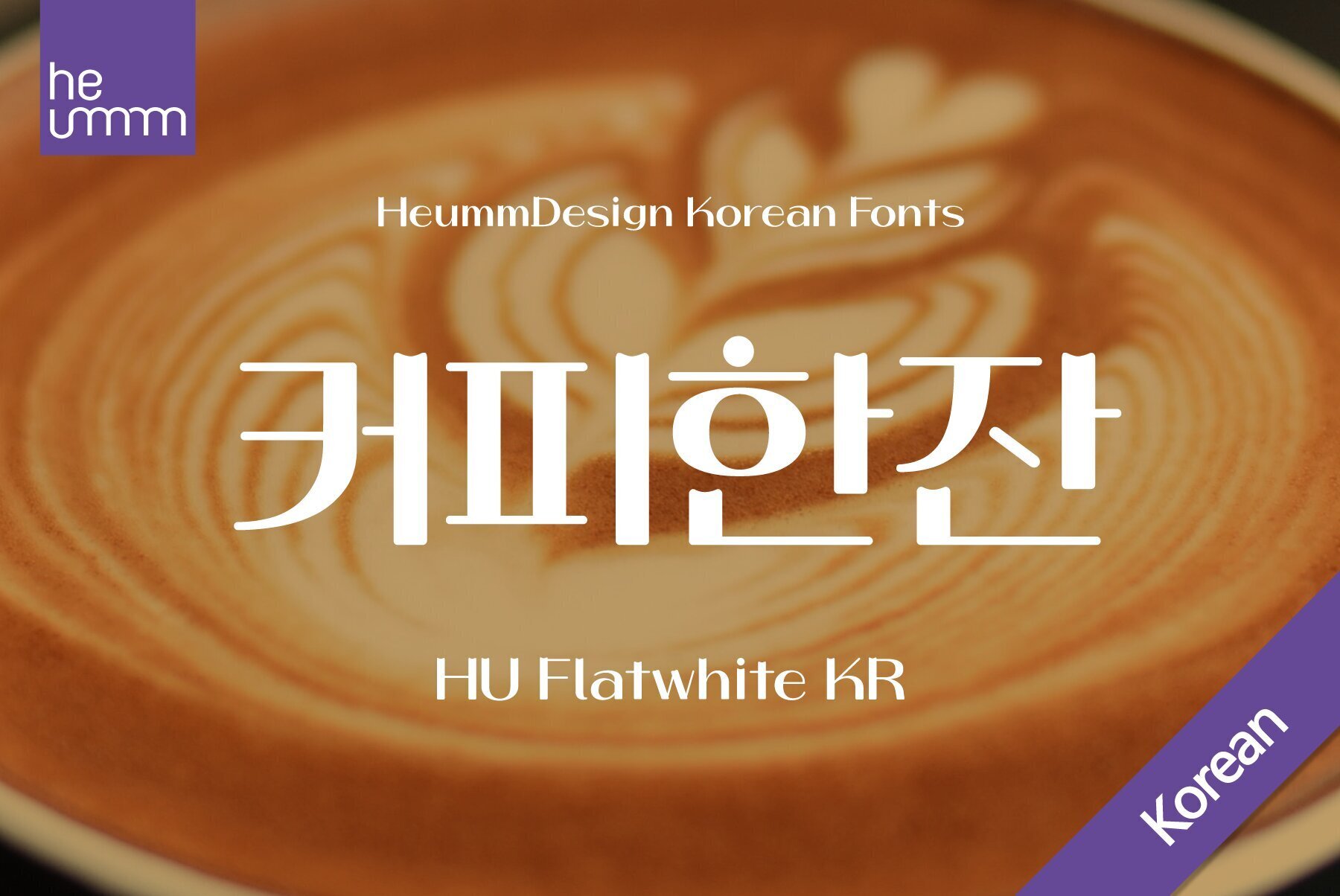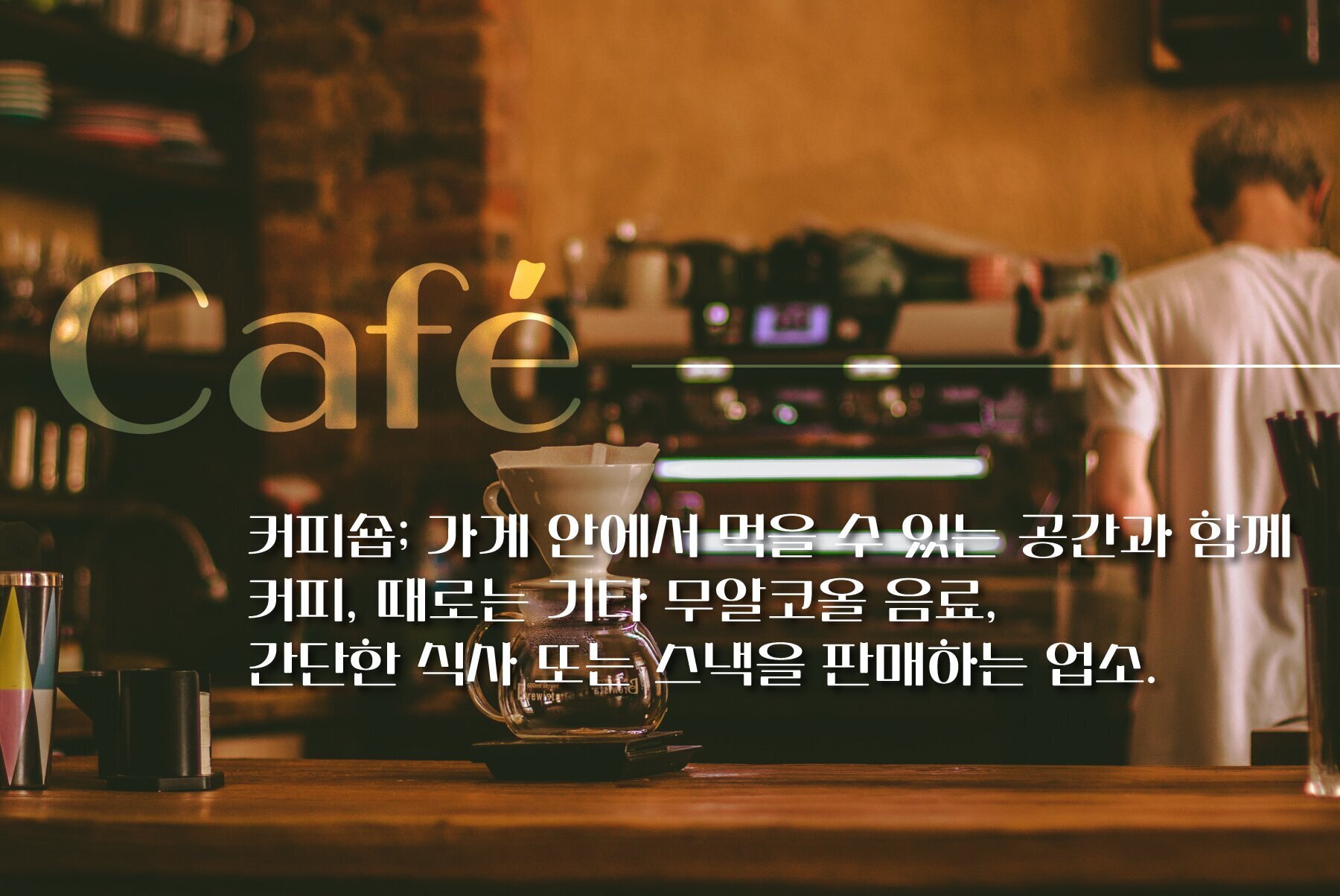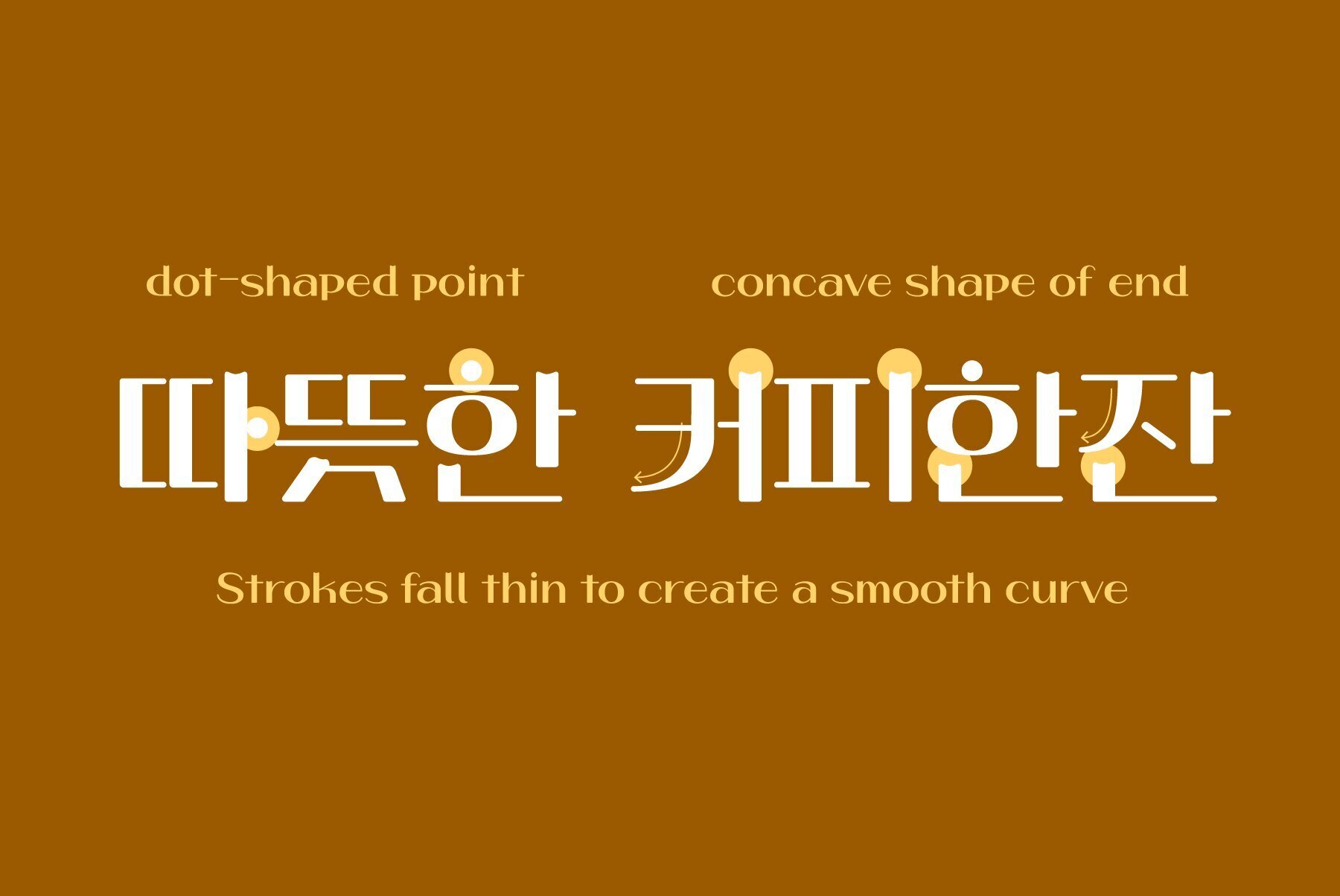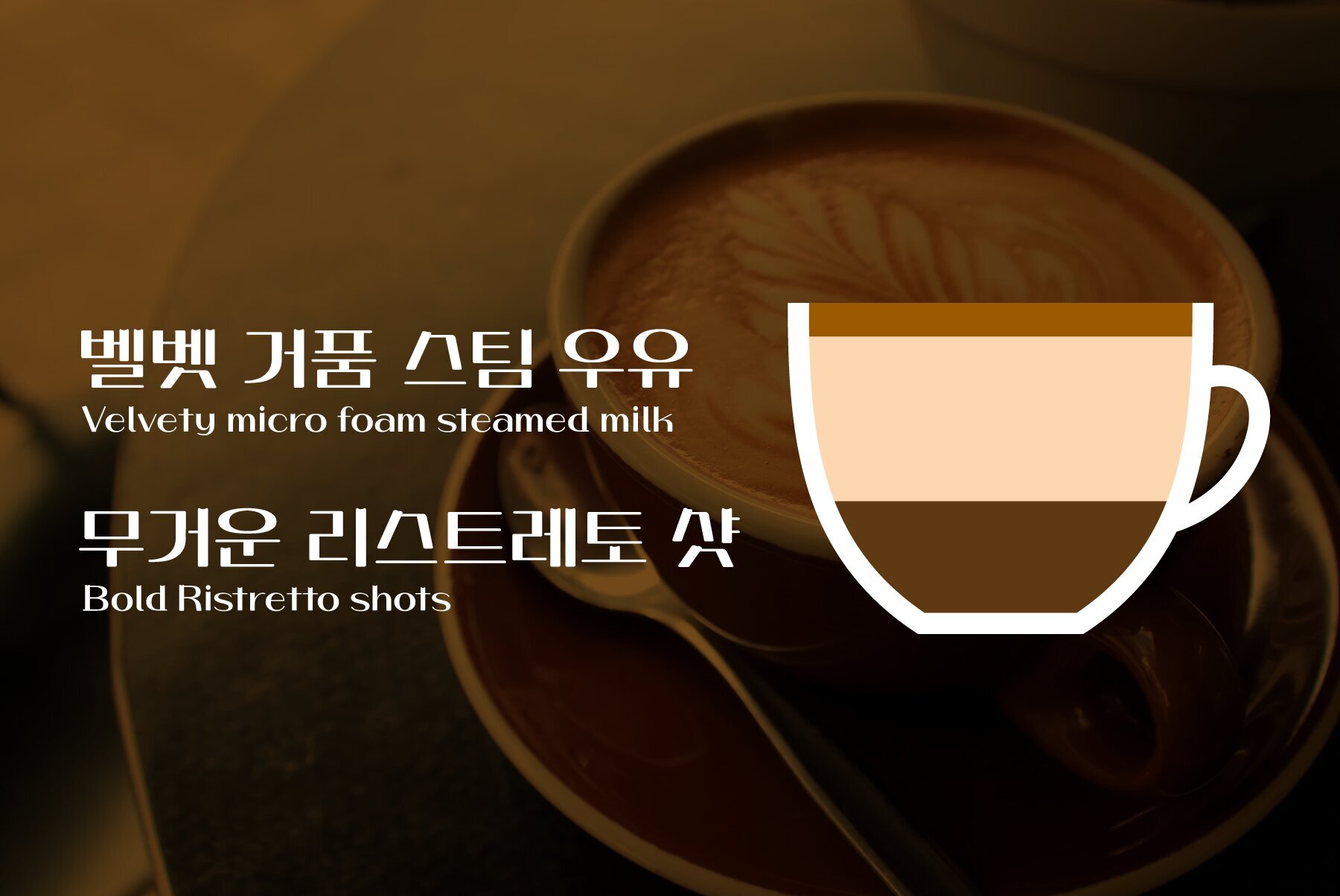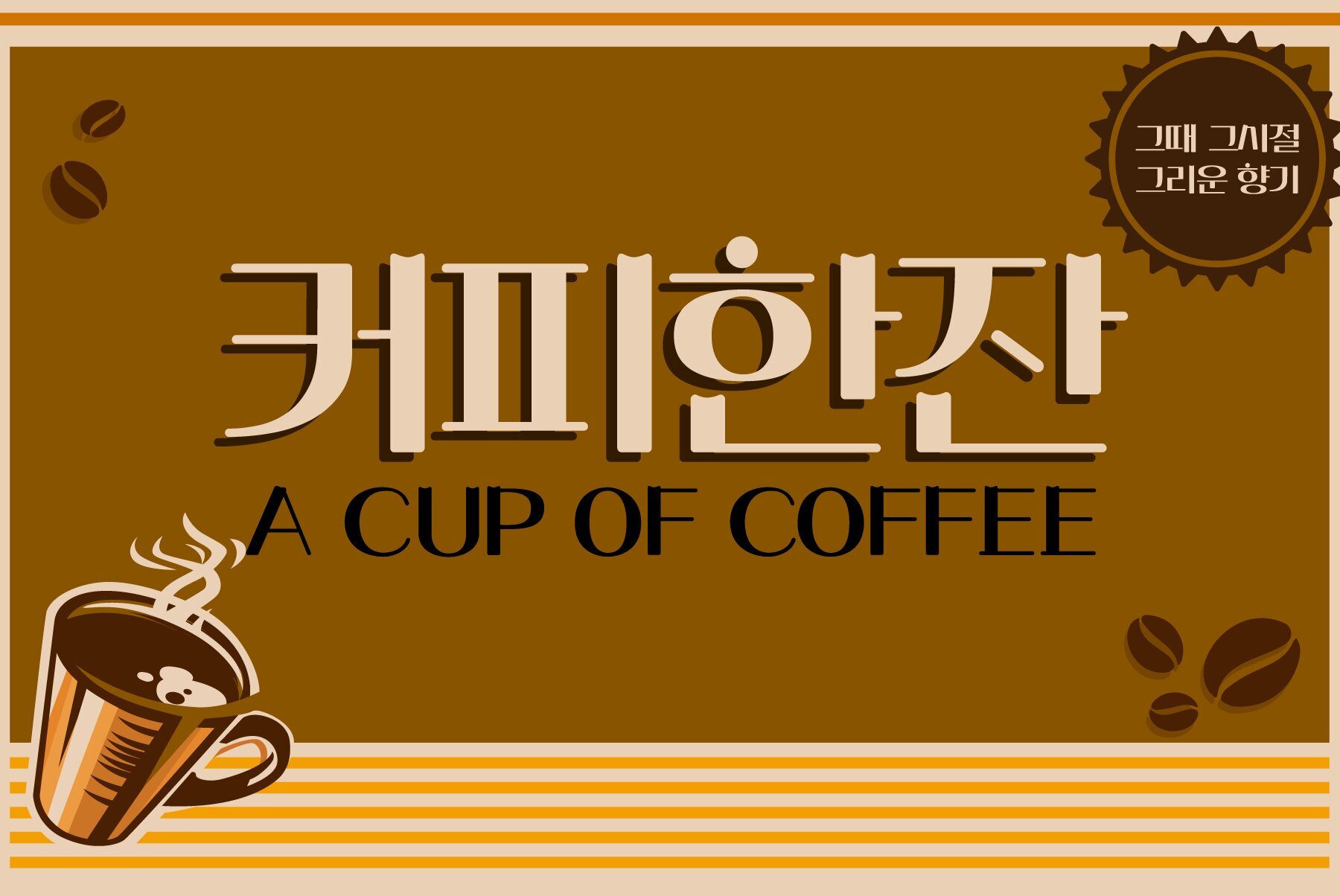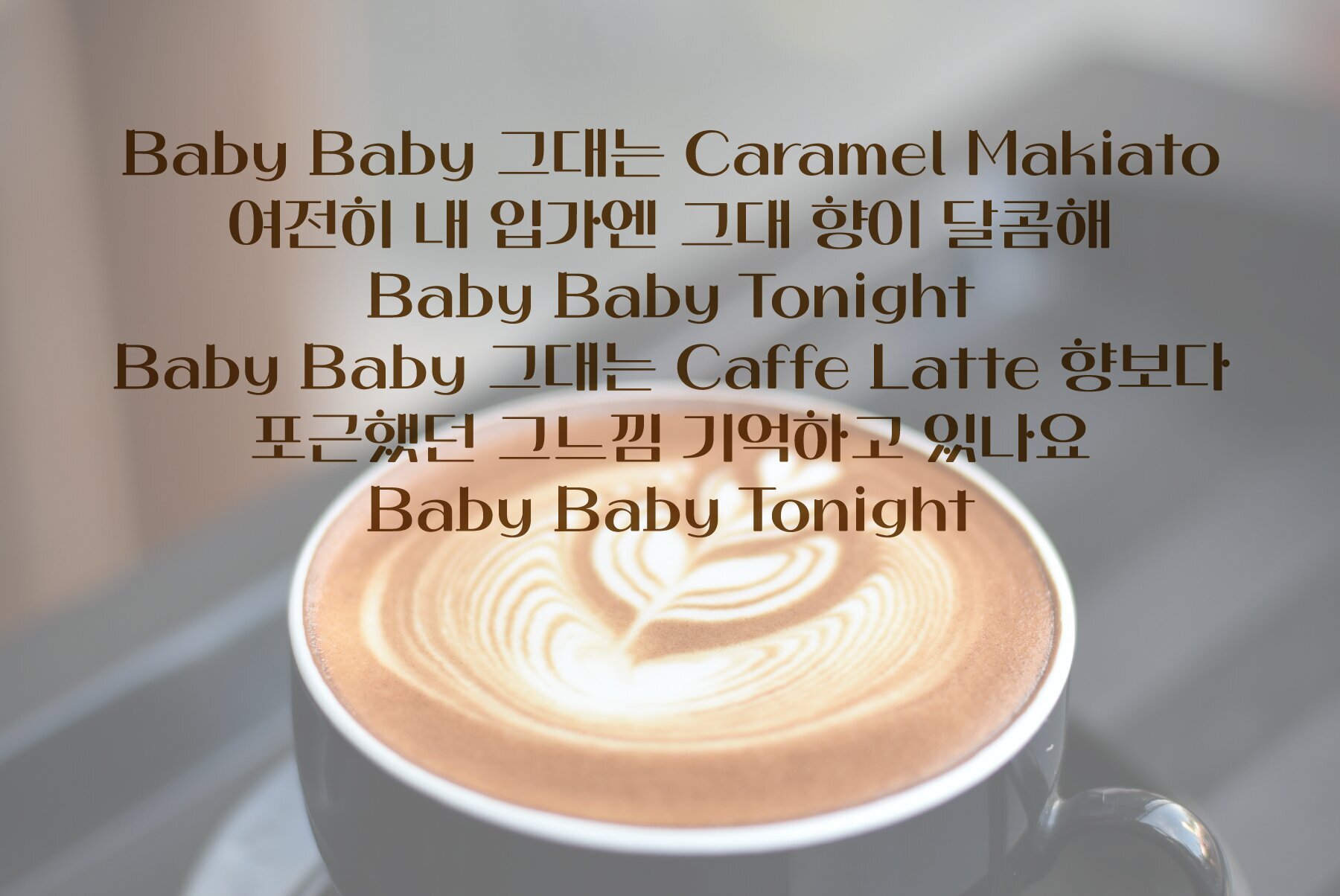
HU Flatwhite KR Font
Introducing a distinctive headline typeface that beautifully blends a retro sensibility with modern typography. This font exhibits a unique charm with its concave initial projections of the vowel and dot shapes, enhancing its vintage appeal. What sets this typeface apart is the dot shape found in the initial consonants and the thin ending strokes of 'ㄱ', 'ㅅ', and 'ㅈ' characters, resulting in a smooth and flowing curve. Despite being a full module typeface, the broad contrast of strokes creates an inner space that imparts a cool, refreshing feel. This typeface is crafted with meticulous attention to detail and provides extensive support for the Korean language, making it an ideal choice for diverse design projects including headlines, titles, posters, signage, and more. Infuse a retro vibe into your designs with this elegant Korean typeface!